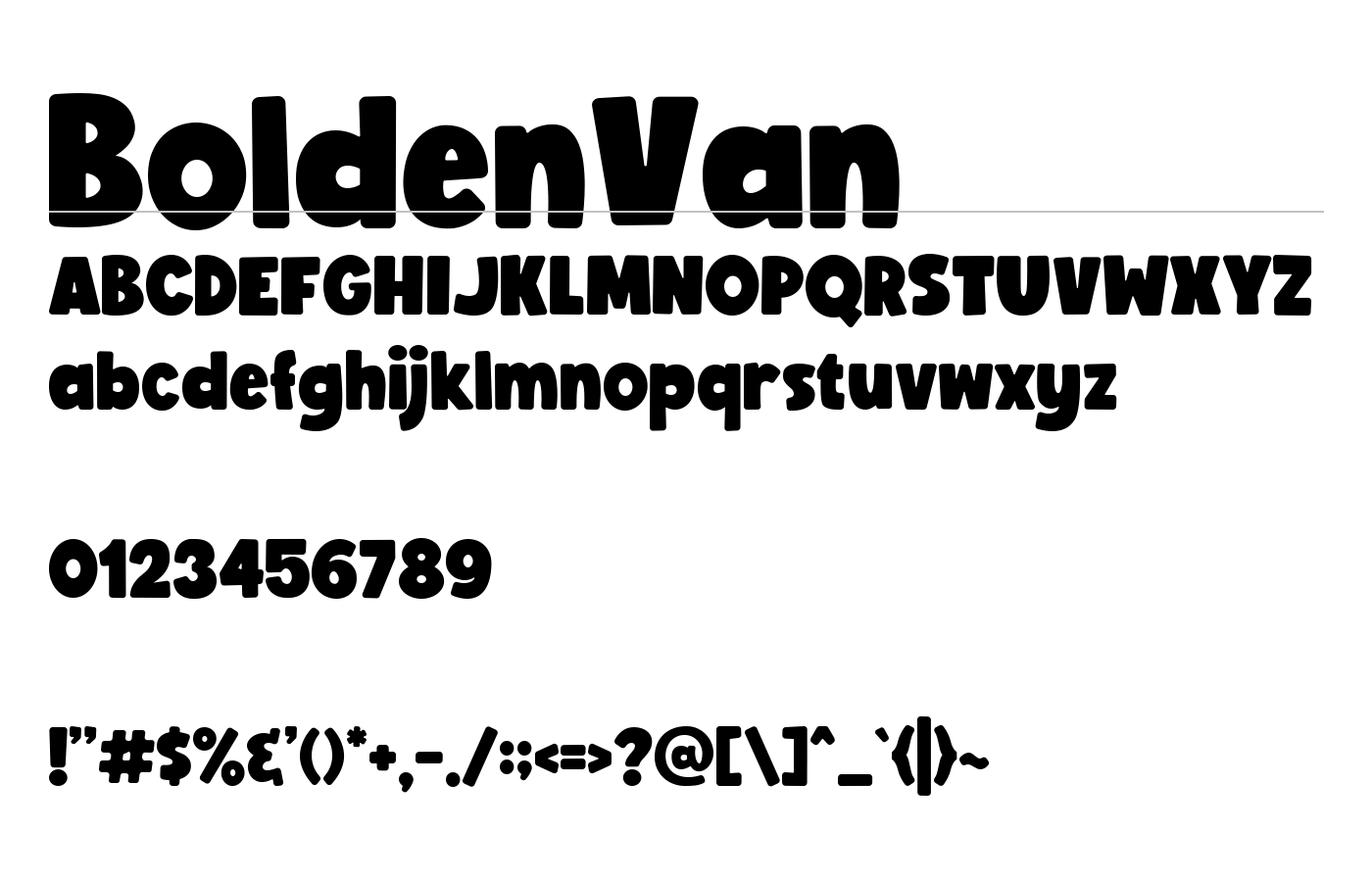
BoldenVan is a bold, rounded sans-serif font with a playful and friendly personality. Its thick, even strokes and soft, slightly irregular shapes give it a casual, approachable feel, making it ideal for children's books, fun branding, and creative projects that want to convey warmth and cheerfulness. This font works best in headlines, logos, and short text where its strong presence and readability can shine.
BoldenVan Font